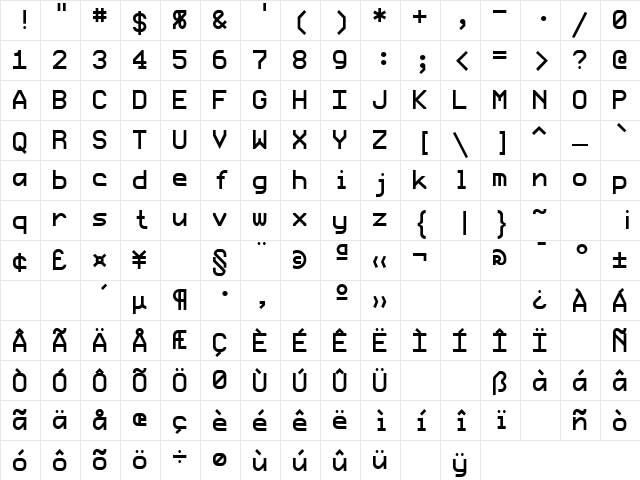
ProFont Regular
Design Context for ProFont Typeface
ProFont is a composed and adaptable typeface that performs quietly and consistently across a wide range of design contexts.